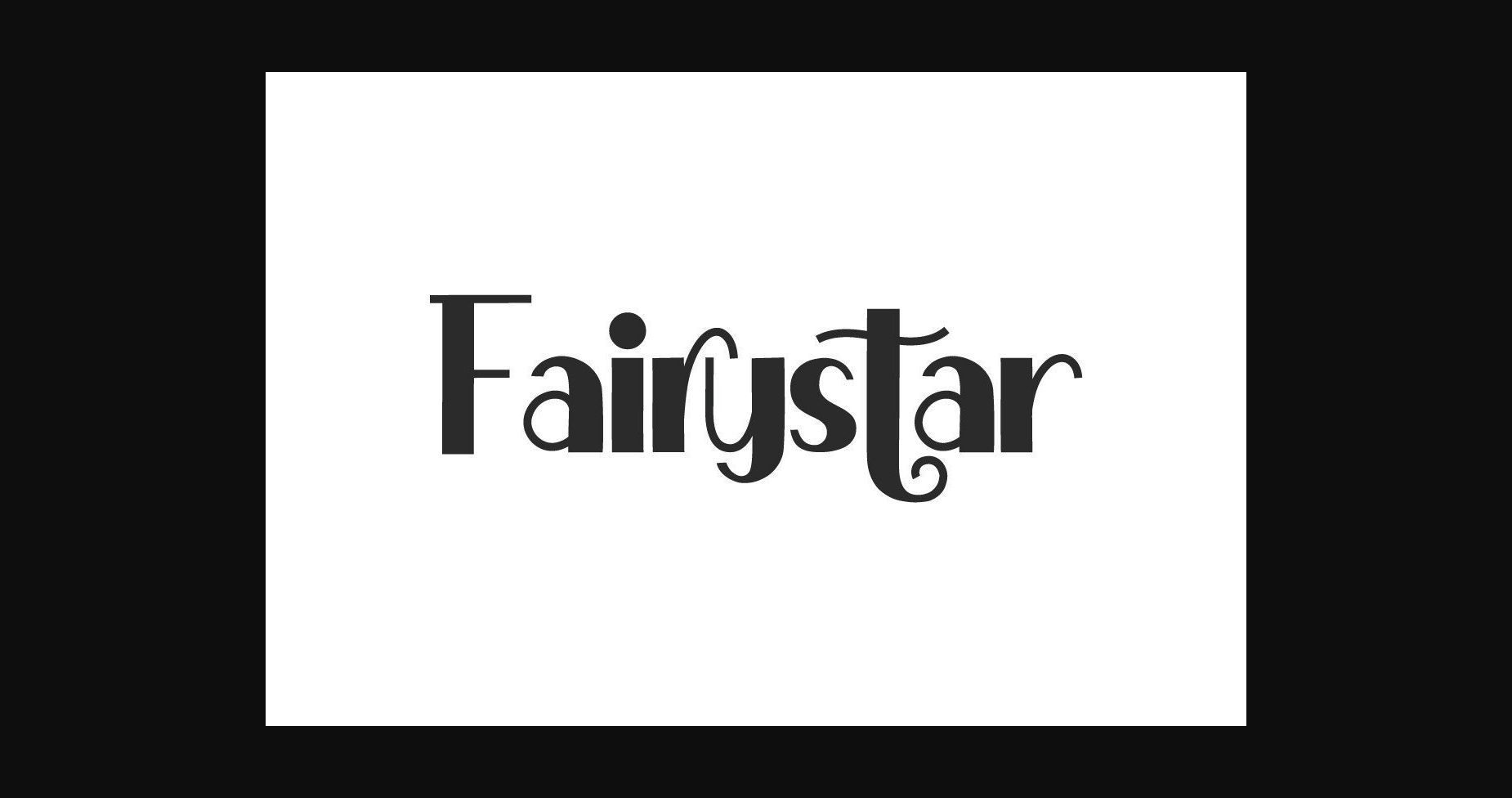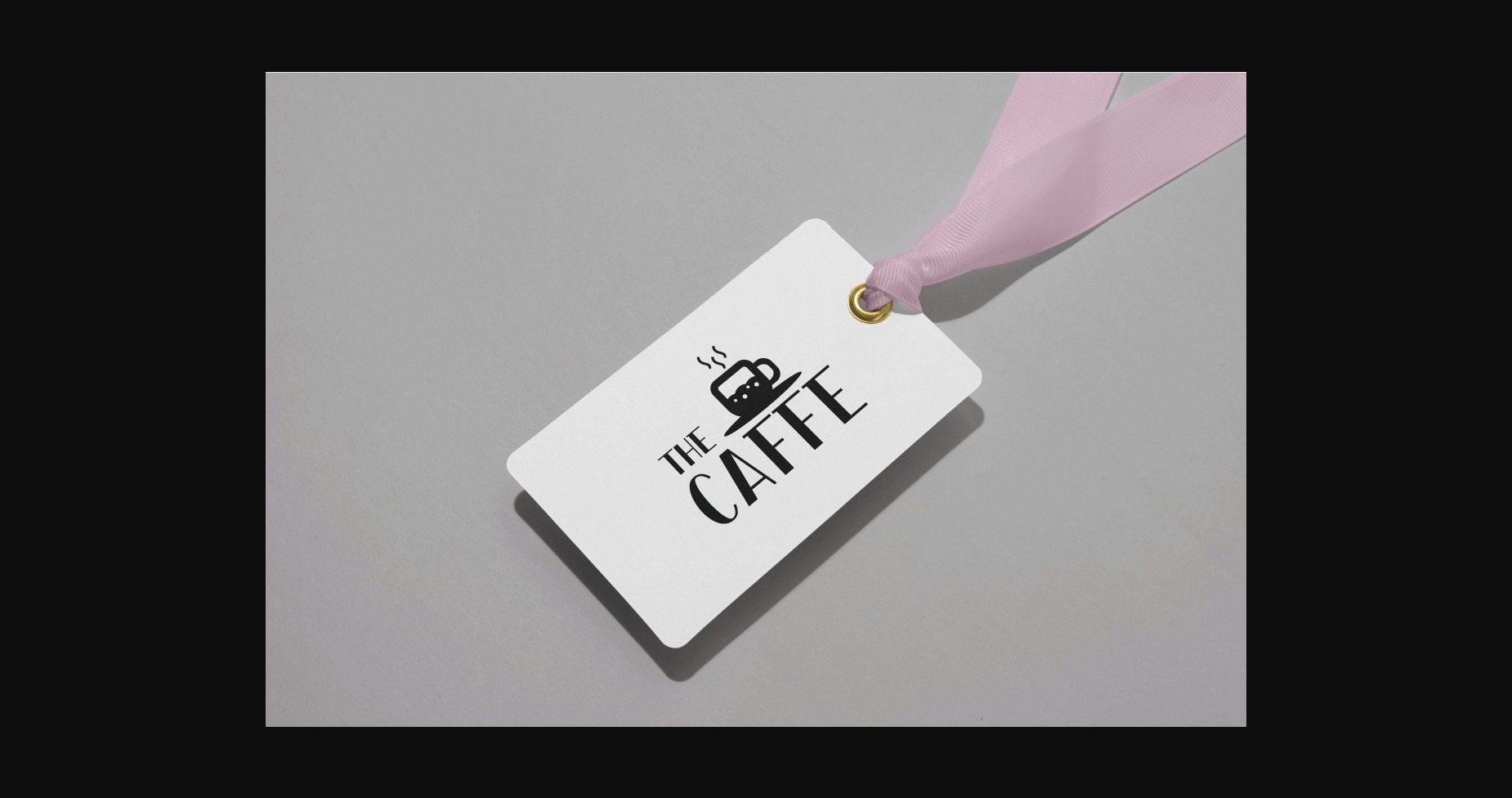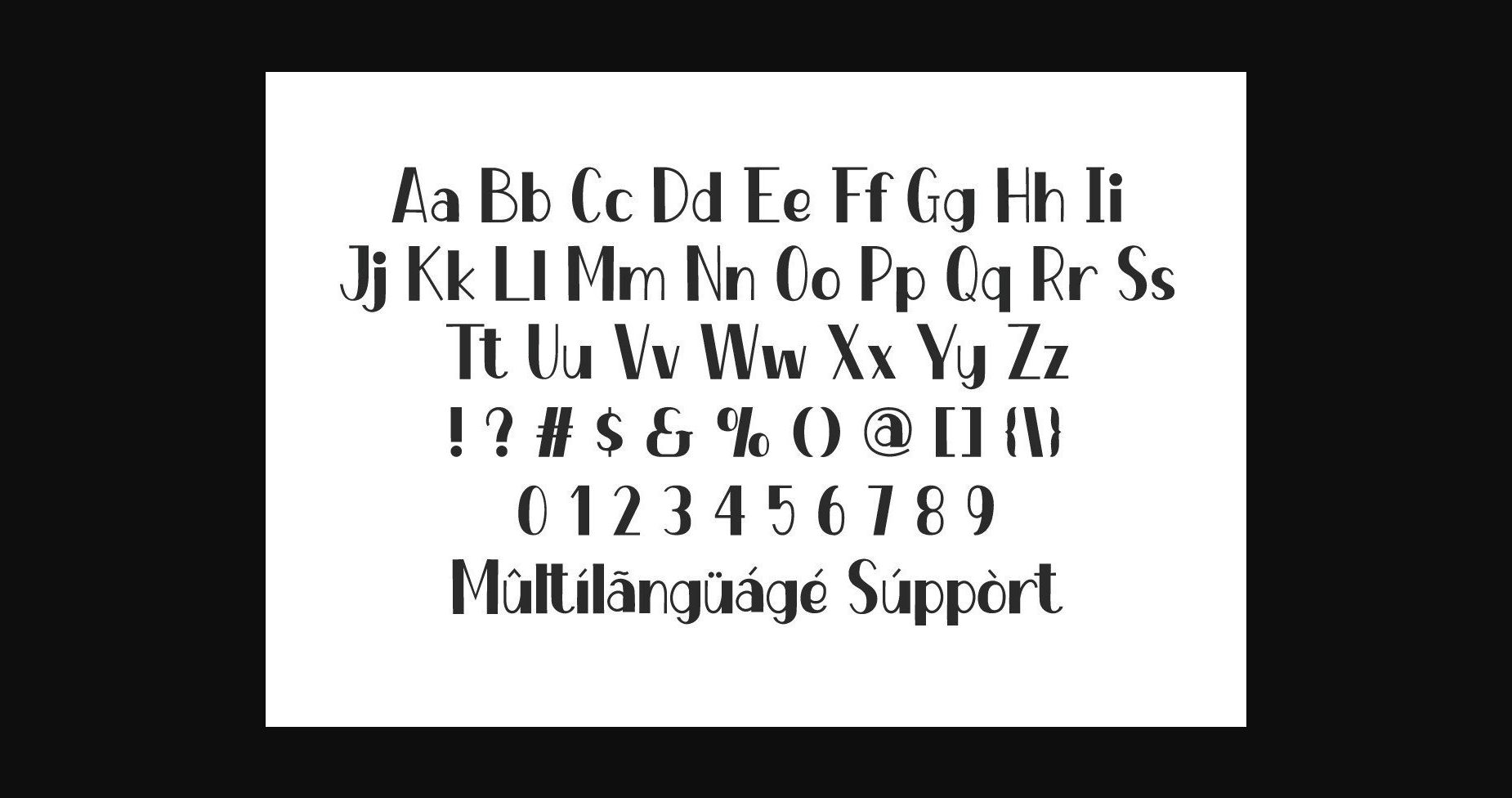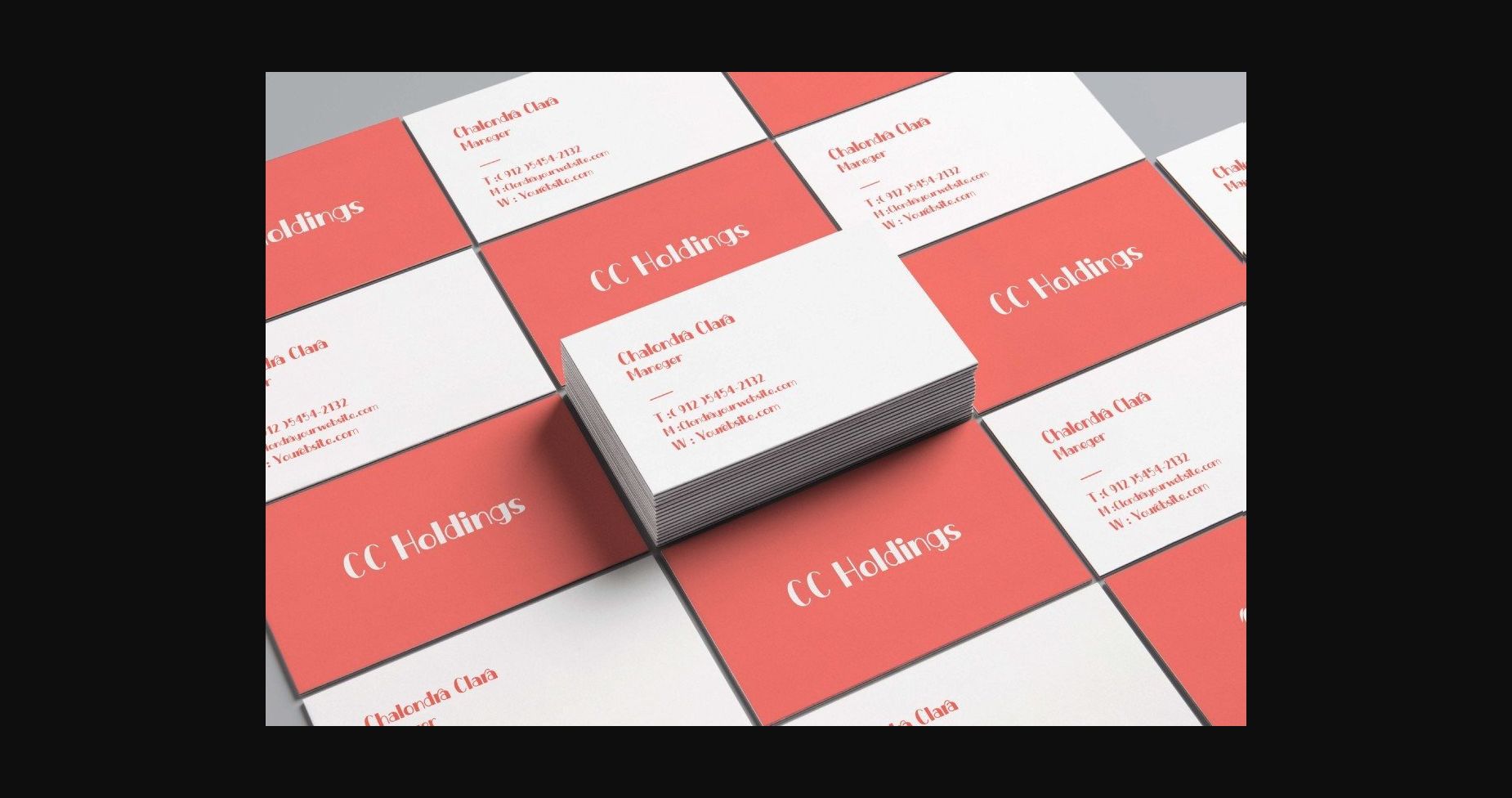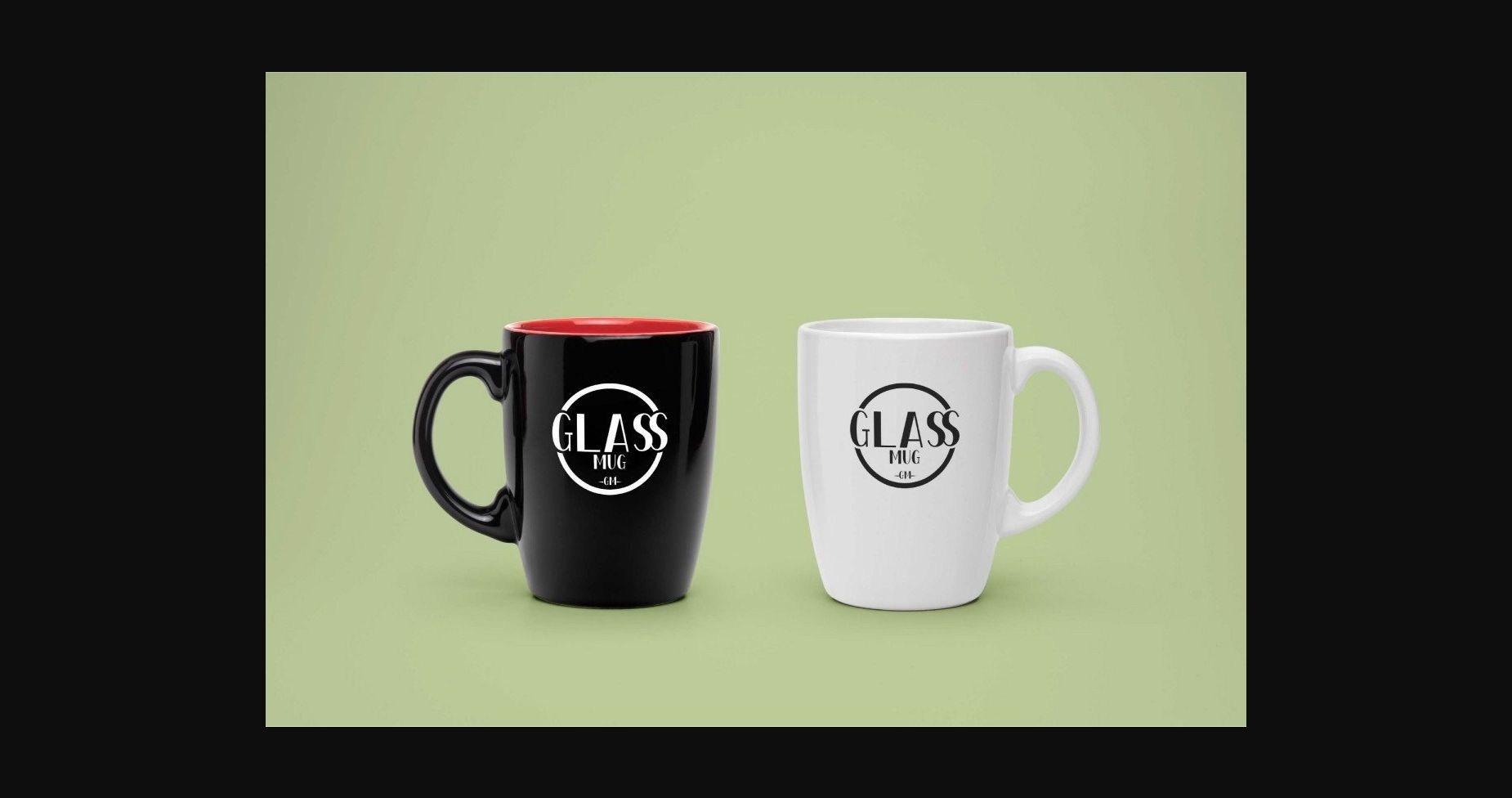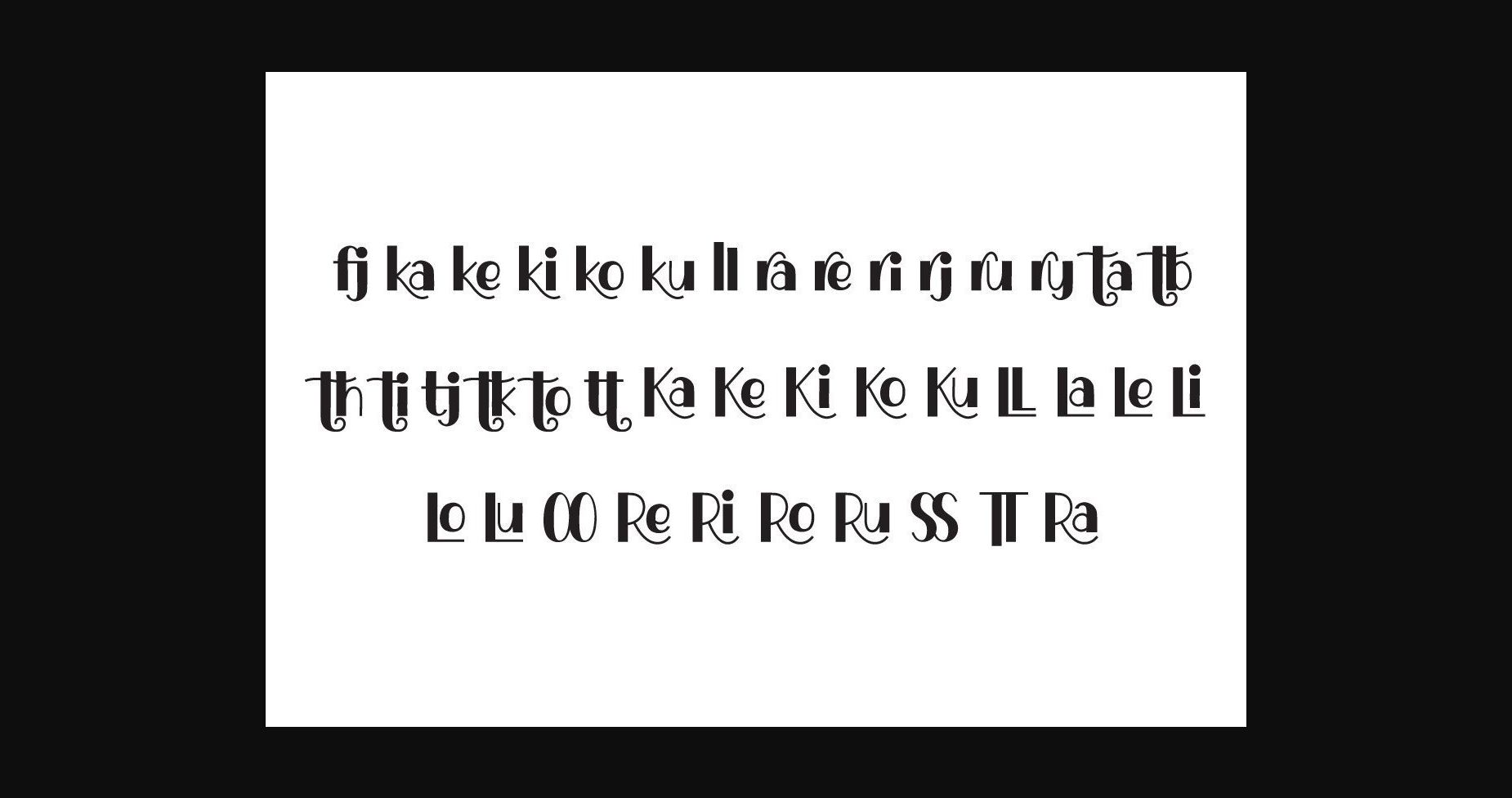
About Fairystar Font
Fairystar is a cute and fun sans serif font that would be great for business cards, product designs, and many other creations.
Many industries will be great with this font: clothing, fashion, comics, brands, homeware, etc